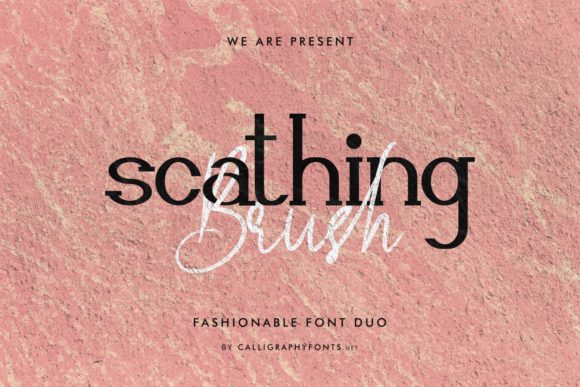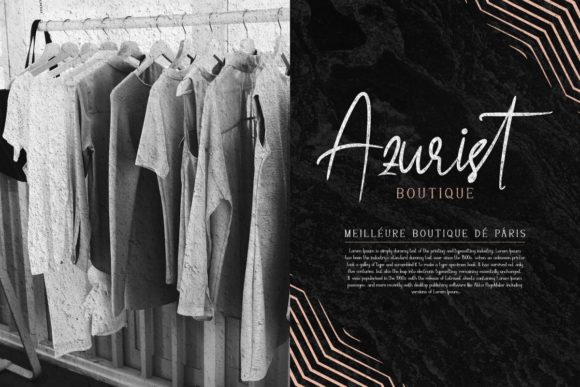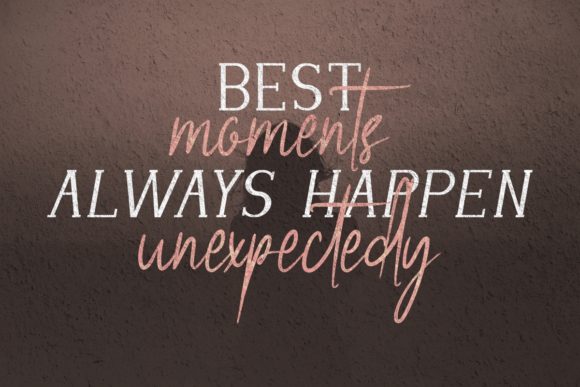
Introduction to Scathing Brush Font
Have you ever stared at a blank canvas, waiting for that spark of creativity to strike? The moment when everything falls into place, and your design comes alive? That’s exactly what happens when you incorporate the Scathing Brush Font into your creative project. This spectacular duo font is a game-changer, offering the perfect blend of serif and script styles that will elevate your designs to new heights.
As a valuable resource for designers, Scathing Brush Font is incredibly versatile, allowing you to experiment with a wide range of designs. From logos to brochures, and even social media graphics, this font is the perfect addition to any high-quality project. With its transparent background and free download option, you can easily integrate it into your design workflow.
Whether you’re working on a personal or professional project, the Scathing Brush Font is sure to make a lasting impression. Its high-quality design and seamless integration capabilities make it an essential tool for any designer looking to take their creative projects to the next level.
Key Features of Scathing Brush Font
- Unique blend of modern and vintage elements, ideal for creative projects that require a touch of sophistication and whimsy.
- Includes a comprehensive character set, covering a wide range of languages, making it a versatile choice for designers working on international projects.
- Perfect for designers working on creative projects, such as branding, advertising, and editorial design, where a unique and eye-catching font is essential.
Honest Review: Scathing Brush Font
As a designer, I’m always on the lookout for high-quality design resources to elevate my creative projects. The Scathing Brush Font caught my eye with its unique, hand-drawn style that’s perfect for adding a touch of personality to any design.
- ✨ Unique and creative font style that’s perfect for adding a personal touch to designs
- ✨ High-quality font that’s suitable for both digital and print projects
- ⚠️ Limited flexibility in terms of customizing the font for specific design projects
Overall, I’m impressed with the Scathing Brush Font’s unique style and high quality. While it may have some limitations, it’s a great addition to any designer’s toolkit, especially for creative projects where a personal touch is needed.
Introduction to Scathing Brush Font
The Scathing Brush Font is a free design resource perfect for adding a touch of high quality to your creative project. This font features a unique and bold style, ideal for making a statement.
Tips for Getting the Most Out of Scathing Brush Font
To get the most out of the Scathing Brush Font, use it in conjunction with a transparent background to create a bold and eye-catching design. You can also experiment with different font sizes and colors to add depth and interest to your design.
Common Use Cases for Scathing Brush Font
The Scathing Brush Font is perfect for a variety of creative projects, including logos, brochures, and social media graphics. Its bold and unique style makes it ideal for making a statement and grabbing attention.